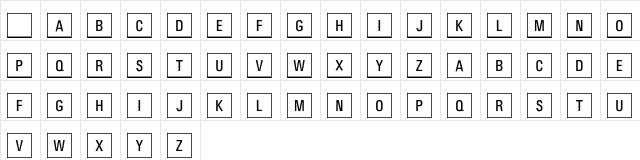
JeuxCache Regular Font Preview
JeuxCache Regular
JeuxCache Regular Font Details
Design Context for JeuxCache Typeface
JeuxCache is a composed and adaptable typeface that performs quietly and consistently across a wide range of design contexts.
Pro Tip: Use JeuxCache in both headline and body roles to test its range before committing to a single application.